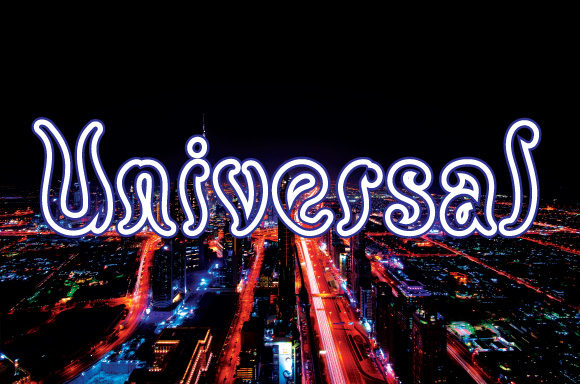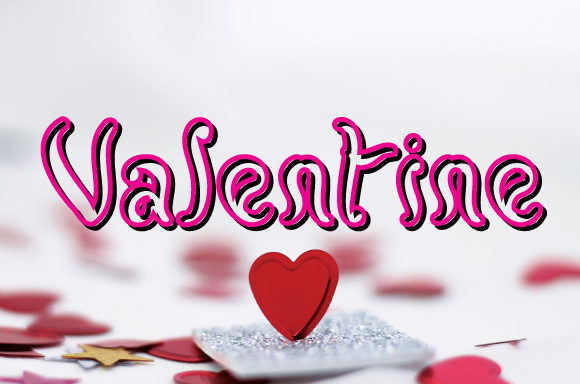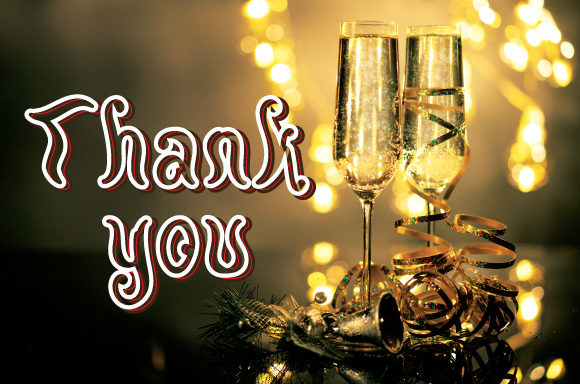
Introduction to Gabzy Font
Gabzy is a fun and relaxed outlined display font.
Incredibly versatile, this font fits a wide pool of designs, elevating them to the highest levels Use this font for your designs and explore its endless possibilities.
Key Features of Gabzy Font
Why Choose Gabzy Font?
Gabzy Font offers exceptional quality and versatility, making it a valuable addition to your design toolkit. Whether you’re creating for personal projects or commercial use, Gabzy Font delivers professional results.